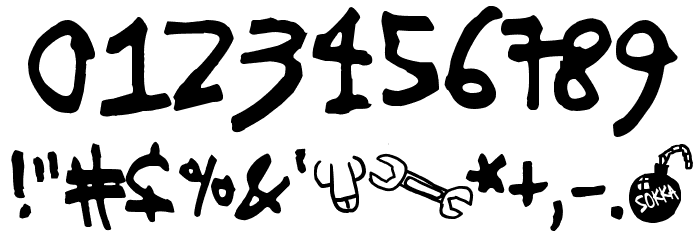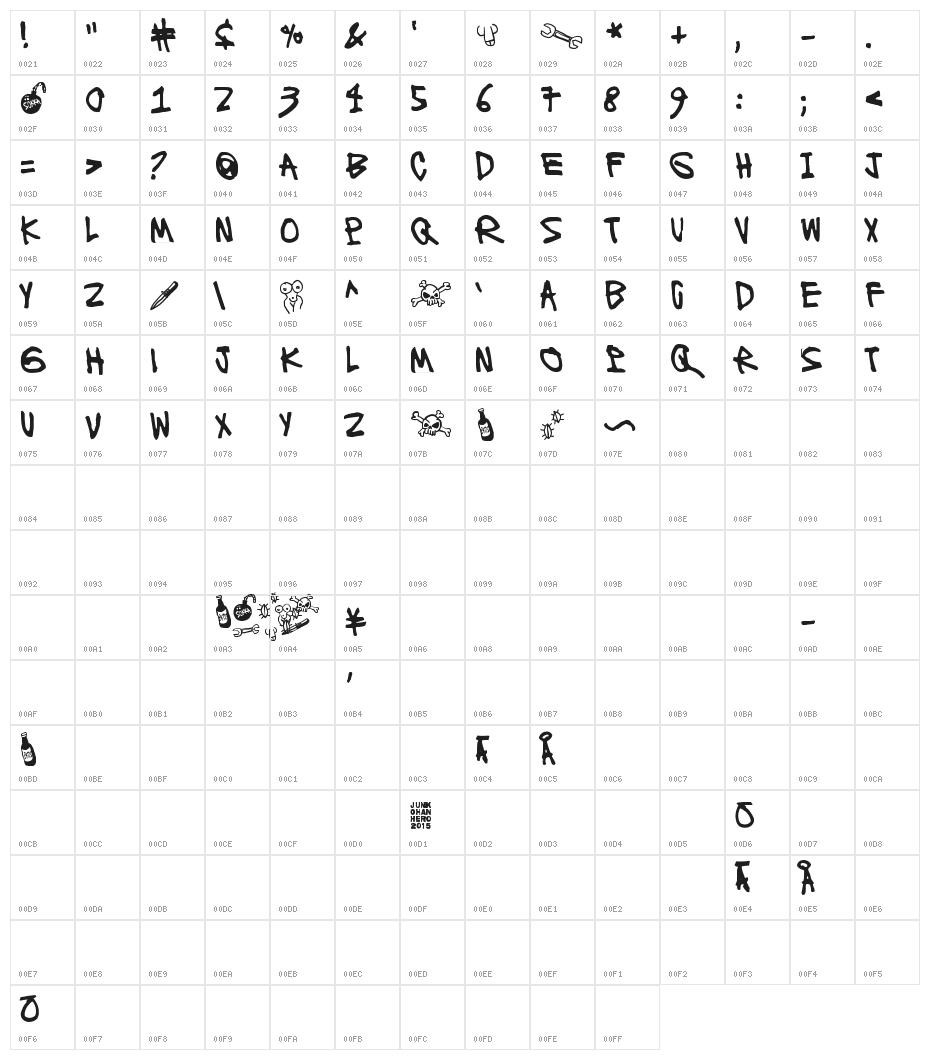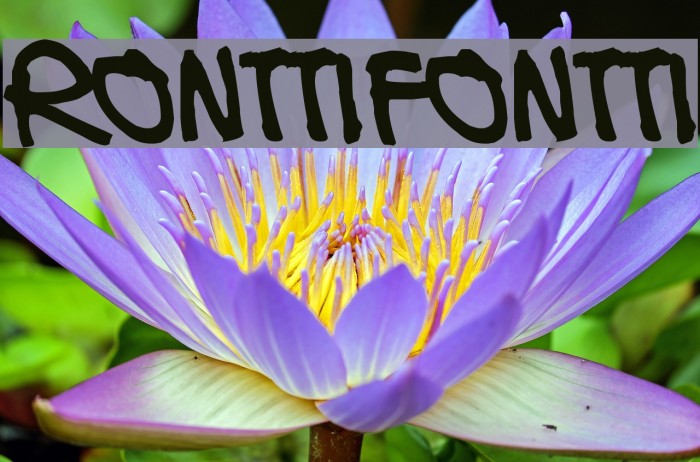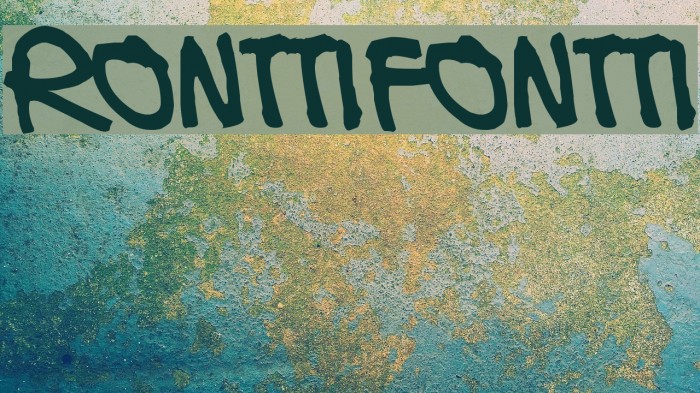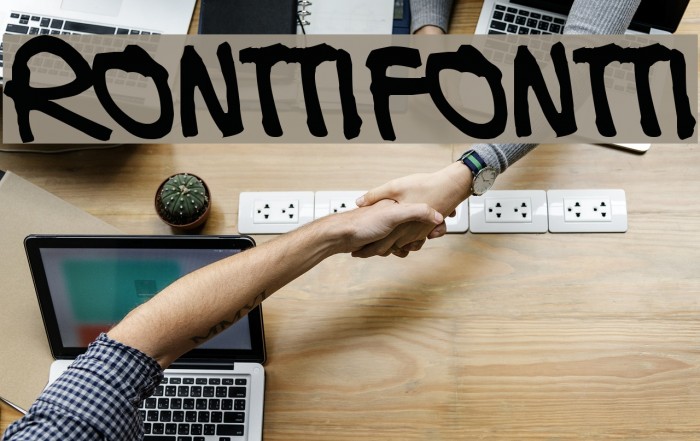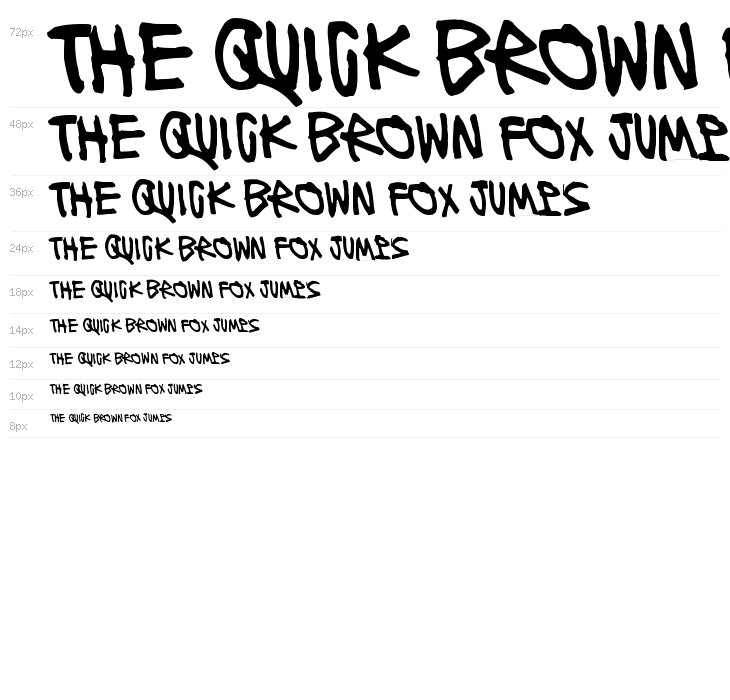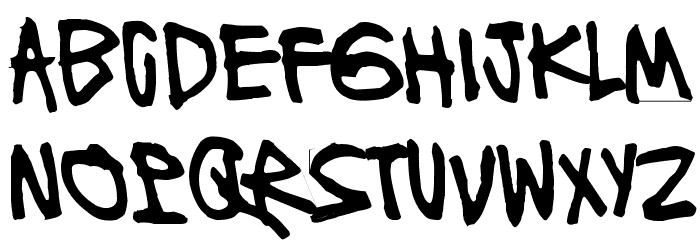
Ronttifontti Font
Ronttifontti Description
This font features a bold, graffiti-inspired style with a hand-drawn appearance. The characters are irregular and dynamic, giving a sense of movement and energy. The uppercase and lowercase letters share a consistent style, with thick strokes and uneven edges that add to the casual, artistic feel. Numbers and special characters maintain this aesthetic, making the font suitable for creative and informal applications. The overall look is playful and expressive, ideal for projects that require a touch of personality and flair.
| Overall Style | Modern, Urban |
| Proposed Projects | Street art designs, music album covers, event posters, urban-themed branding. |